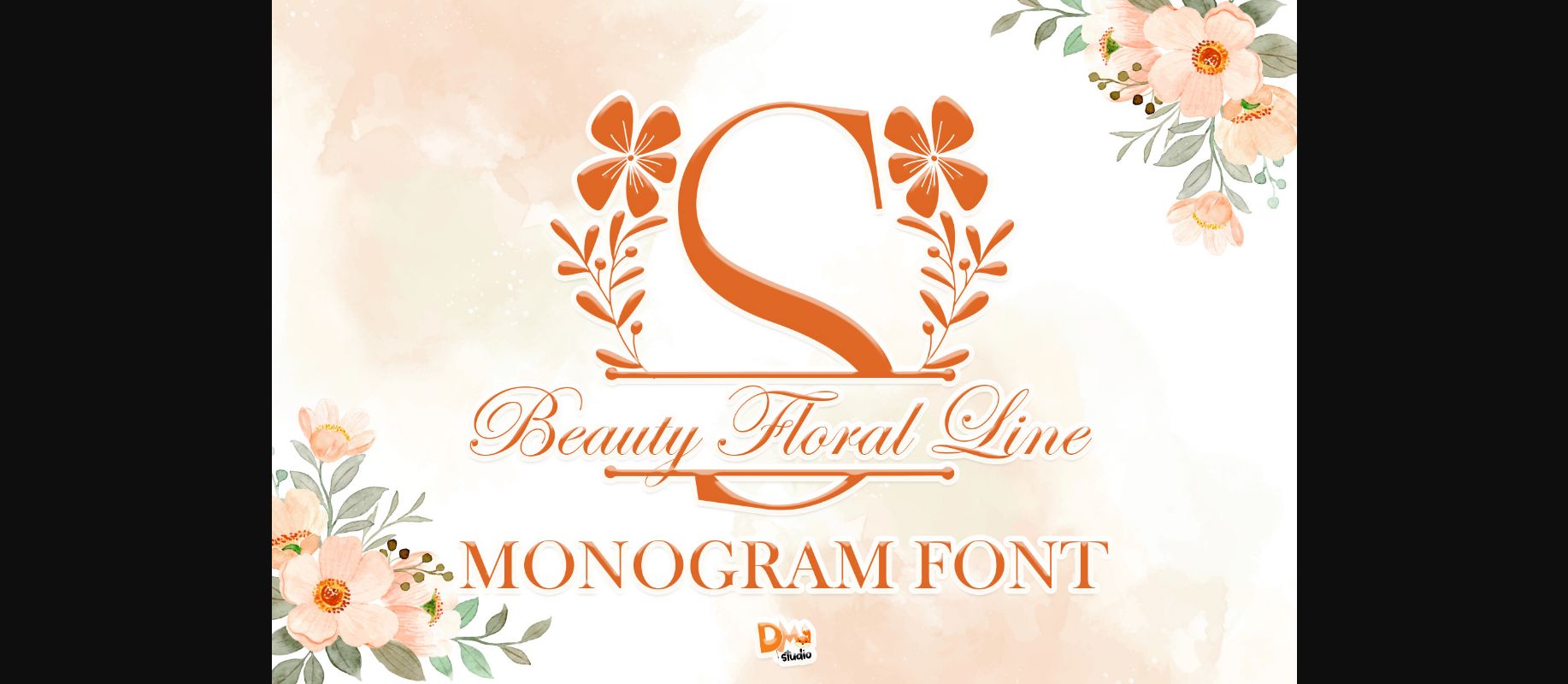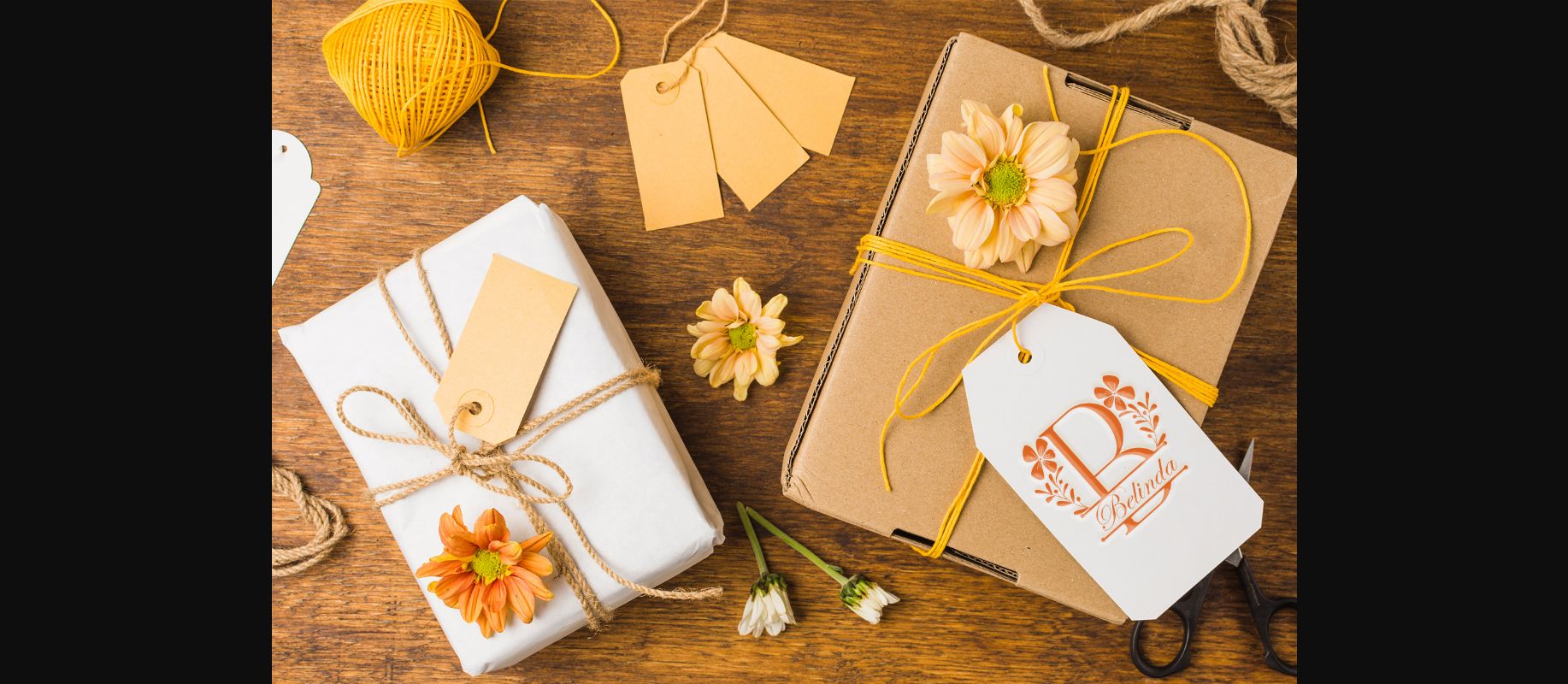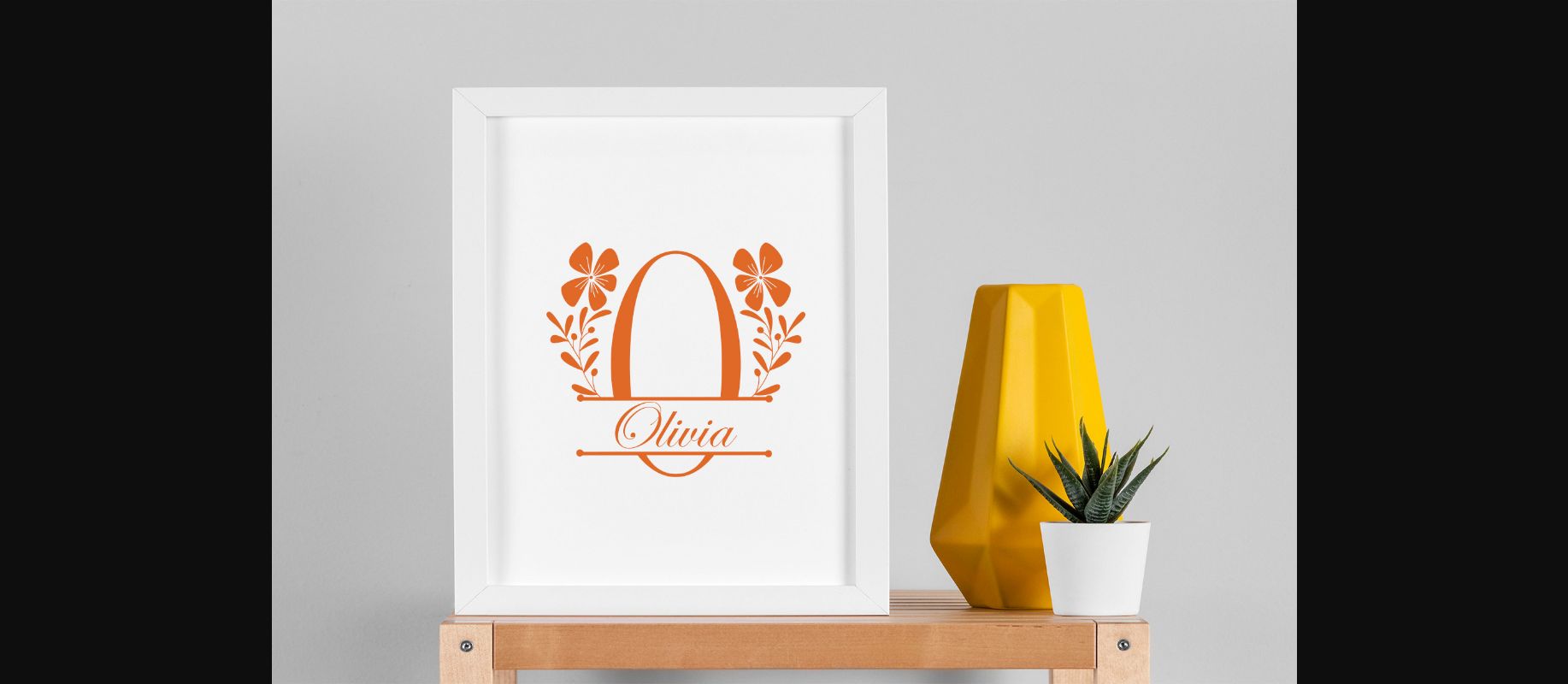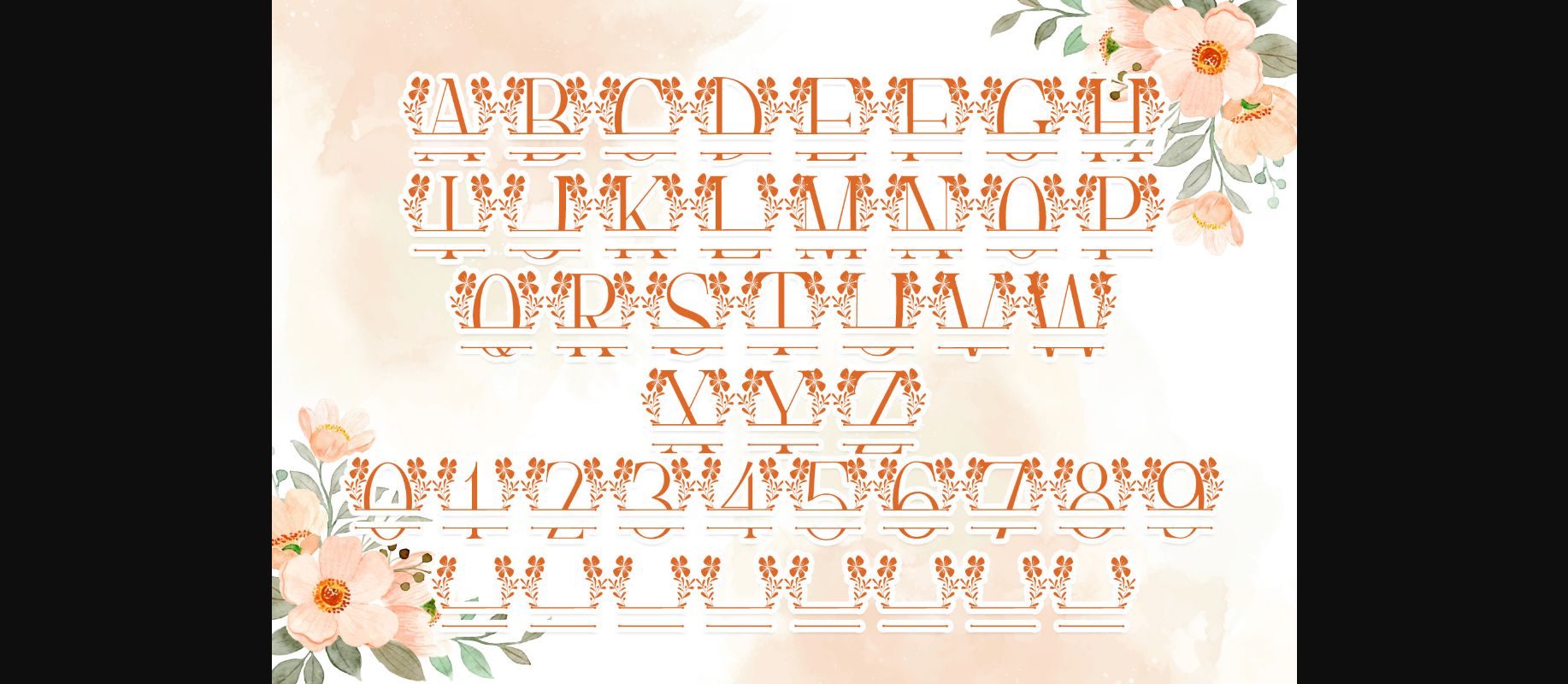
Beauty Floral Line Is a dainty and unique decorative font. Add this romantic and lovely looking font to each of your love letters, wedding invitations or favorite design ideas, and you will be astounded by the outcome.